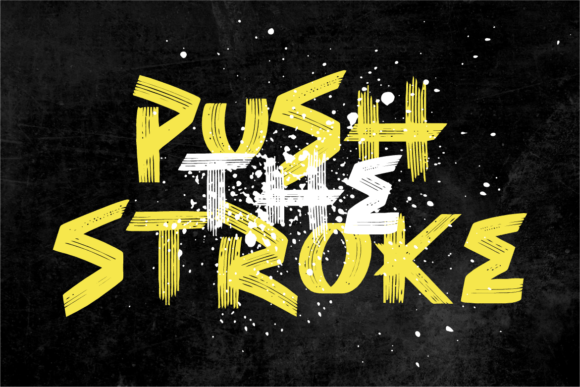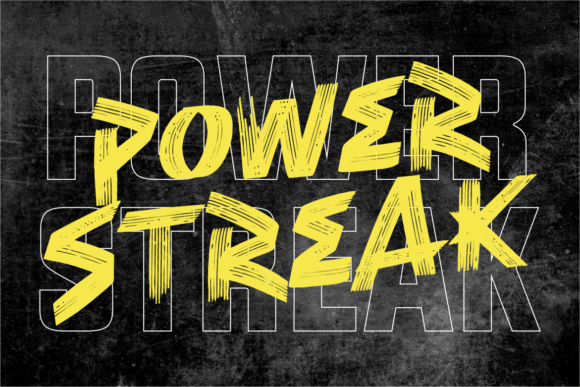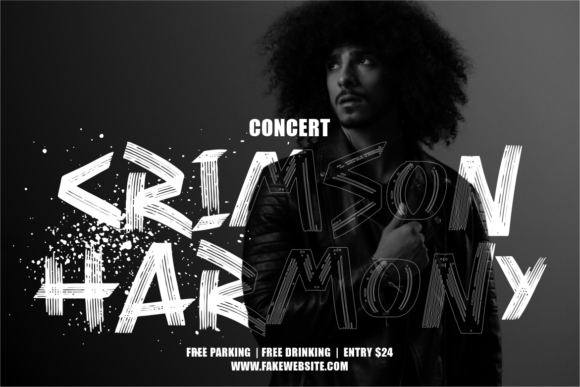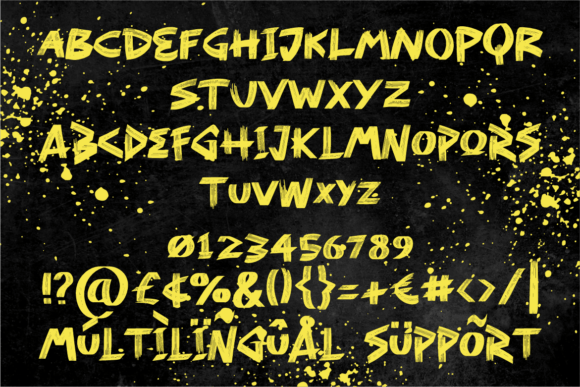
Introduction to Boost Stroke Font
Boost Stroke Brush Font is a dynamic and expressive typeface designed to encapsulate the raw energy and vigor of sports and action themes.
With a distinctly rugged brush texture, each character exudes strength and motion, making it ideal for projects that demand attention and power The font employs bold, sharp lines intertwined with spontaneous brush strokes, providing an authentic, handcrafted appearance.
Key Features of Boost Stroke Font